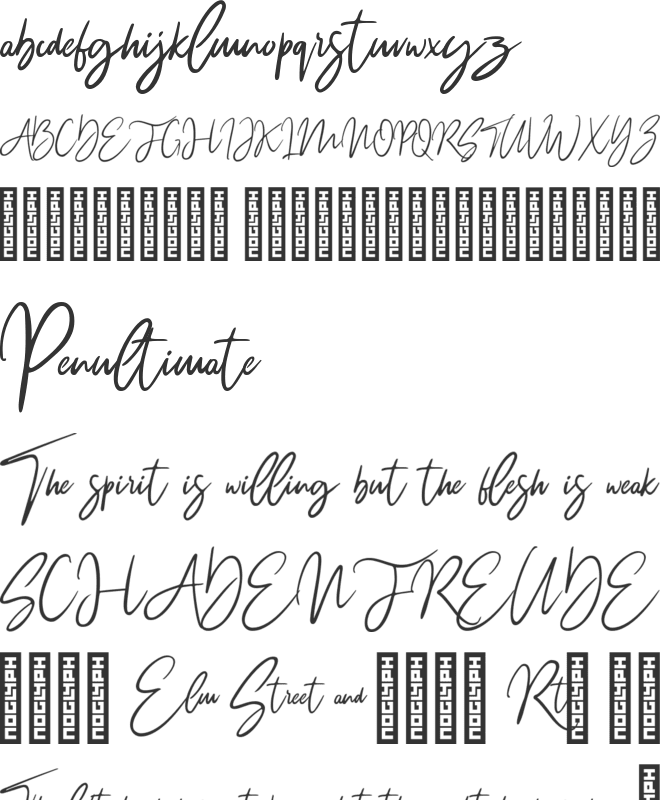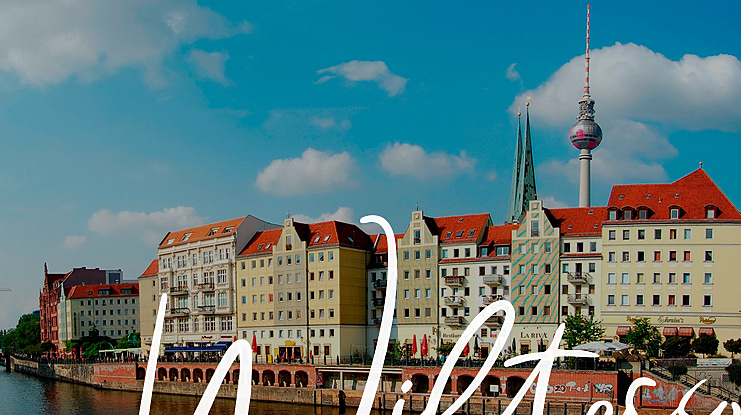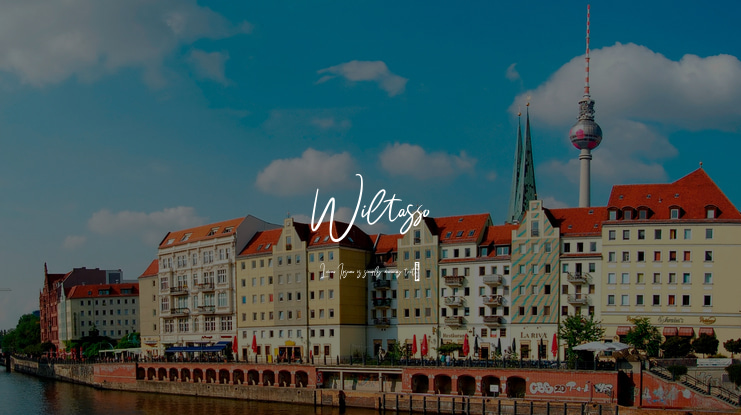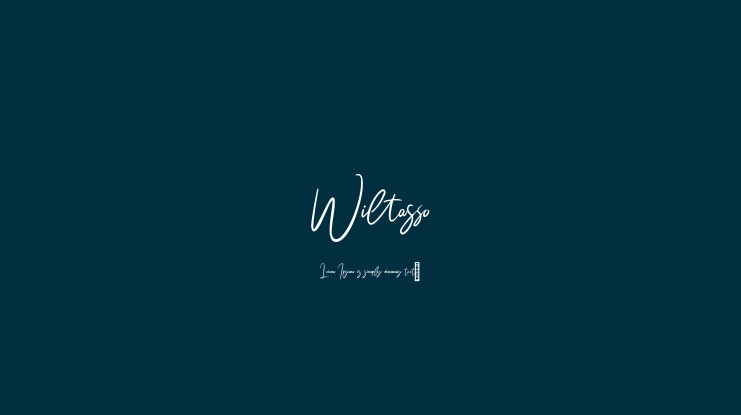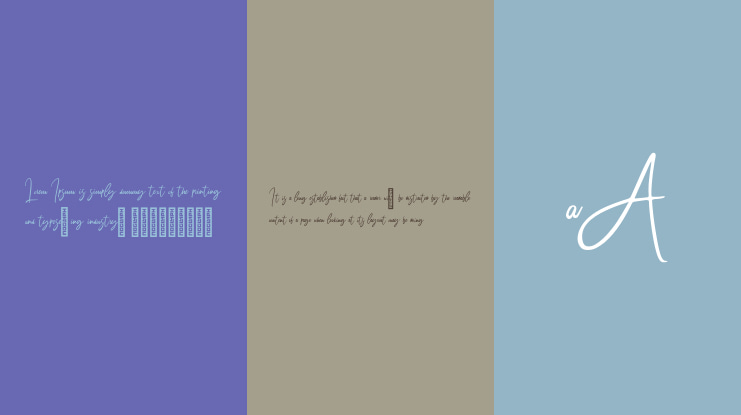
Wiltasso Font
Introducing Wiltasso , a signature typeface. This font is made pure by handmade signature then . With our signature organic look. This font also contains with more than 20 ligatures. It’ll be very suitable for your design needs.
Wiltasso font preview